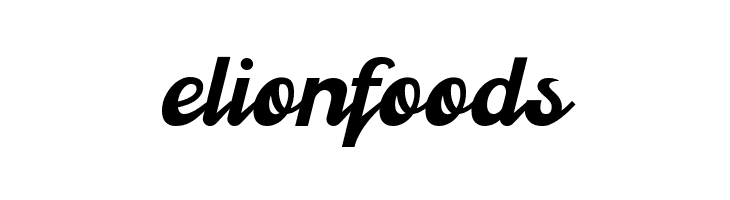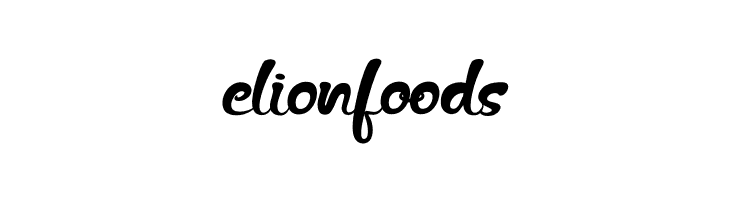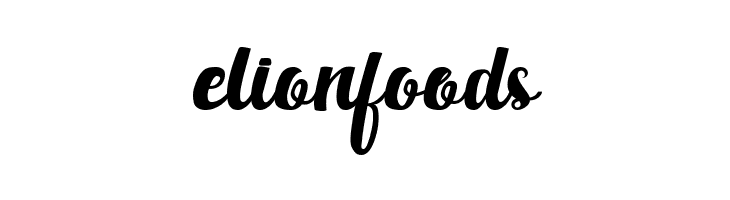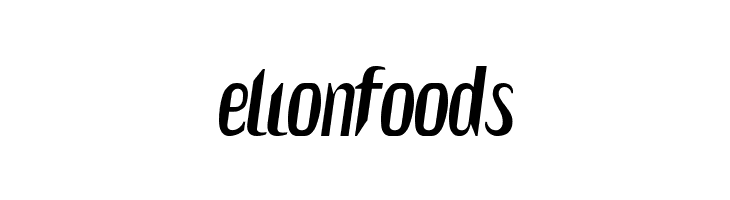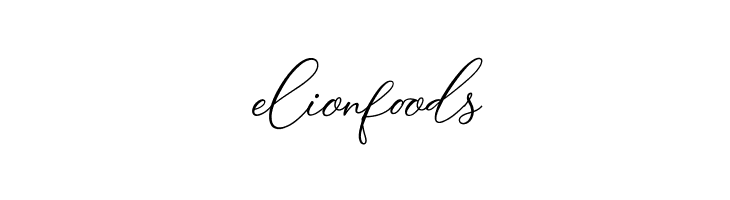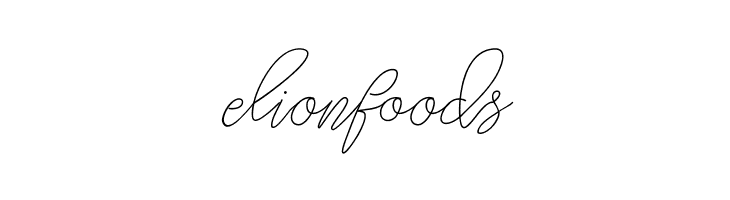
• Gothiqua
A bold, modern font with gothic influences and geometric structure.
• Radiator Falls
A playful, interconnected script font with rounded edges and smooth curves.
• Boardley Demo
A bold, flowing script font with elegant curves and modern touches.
• Serendipity
An elegant and flowing script font with high contrast and graceful curves.
• The Fox Tail Regular
A playful and whimsical script font with flowing curves and elegant loops.
• Quillotha
A bold, expressive script font with flowing, connected letterforms.
• Salvesen
A sleek, modern italic font with elongated, elegant characters.
• Camp Justice Halftone
A bold, geometric font with a halftone gradient effect.
• Modennta
An elegant script font with flowing, interconnected letters and ornate flourishes.
• About Sweet Memories
A bold, cursive handwritten font with dynamic, flowing characters.
• Anything For You
A dynamic and fluid script font with elegant, flowing letterforms and high contrast.
• Asian Skyline DEMO Regular
An elegant, flowing script font with a hand-drawn, calligraphic style.
• First Choice DEMO Regular
An elegant script font with flowing, cursive letterforms and high contrast.
• Rousseau Regular
An elegant and decorative font with intricate swirls and flourishes.
• BelymonScriptDEMO